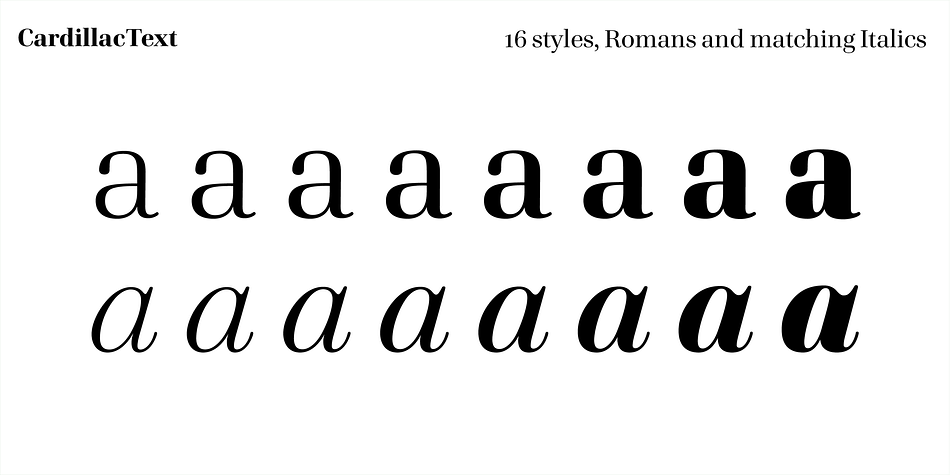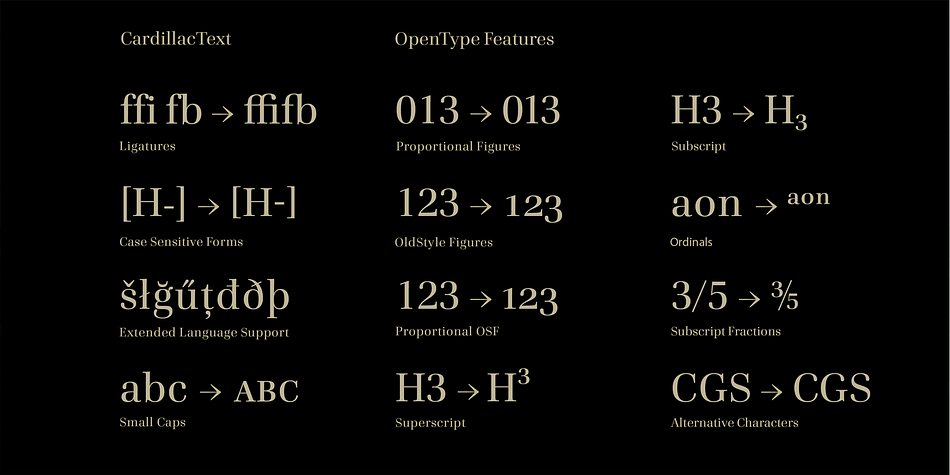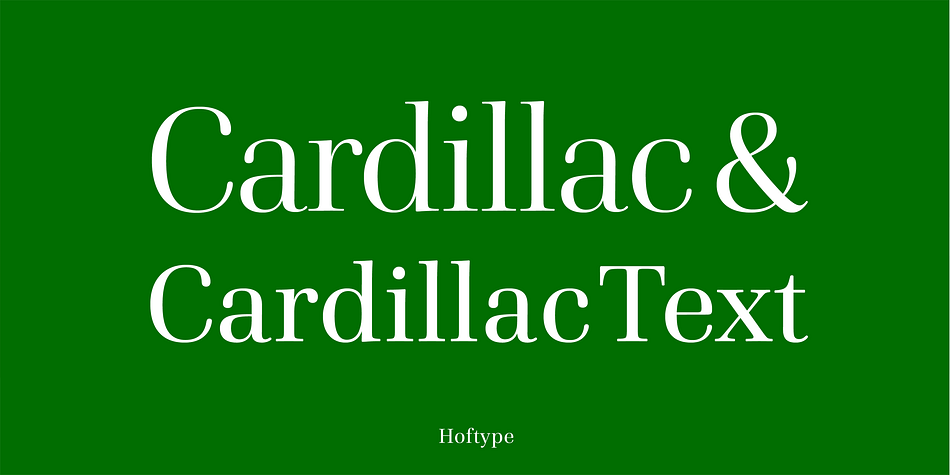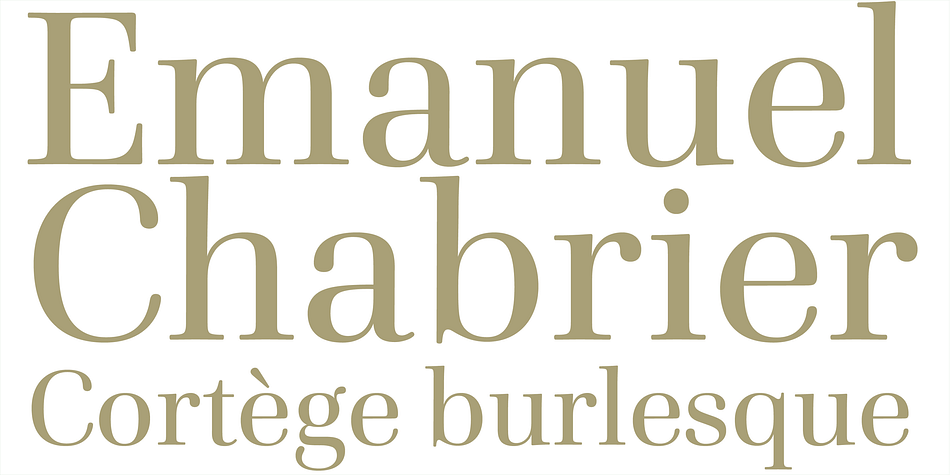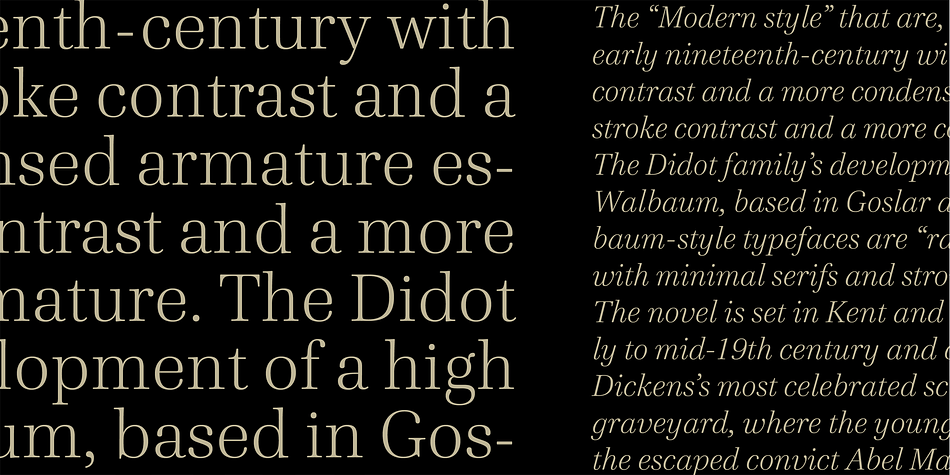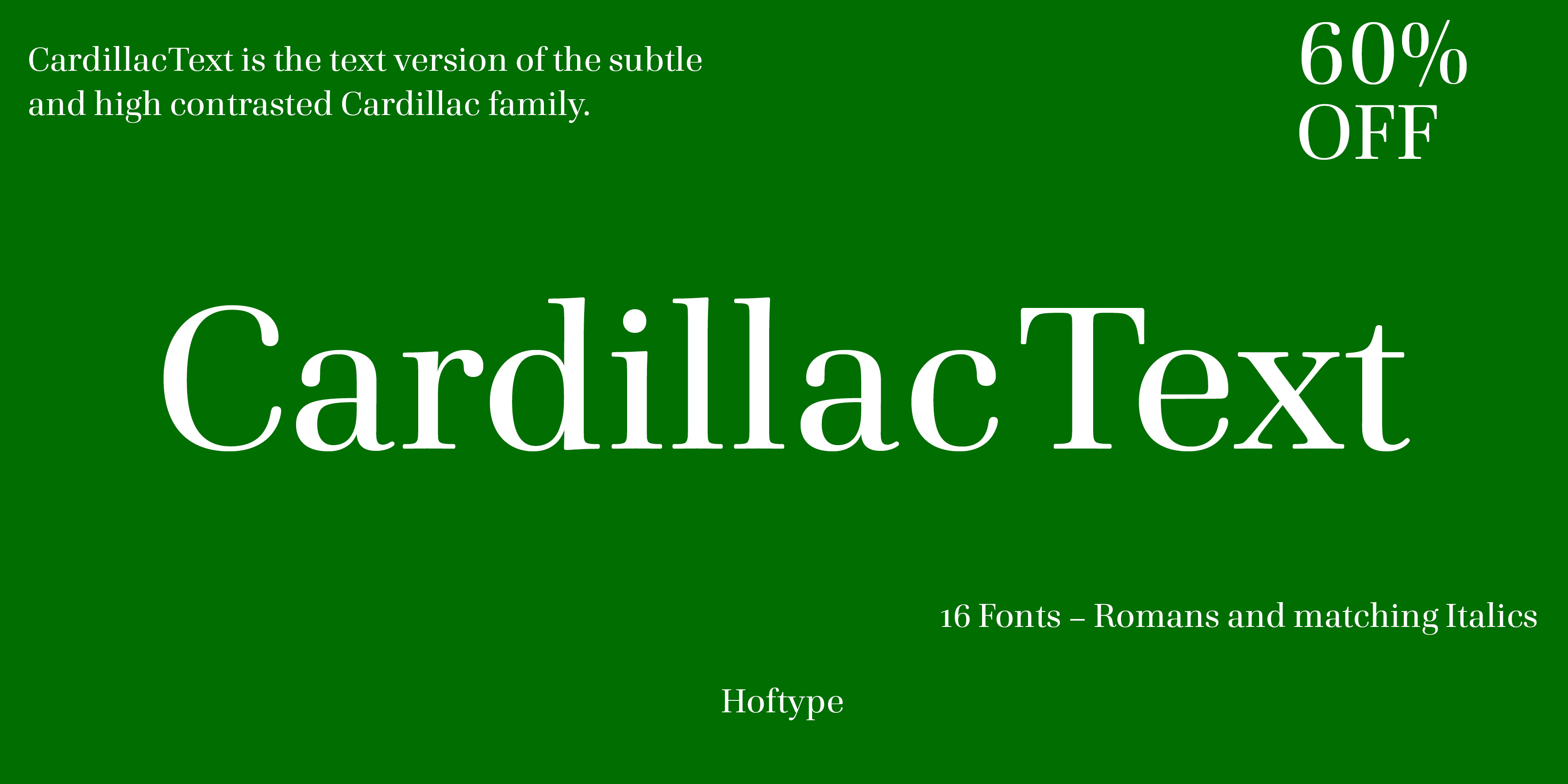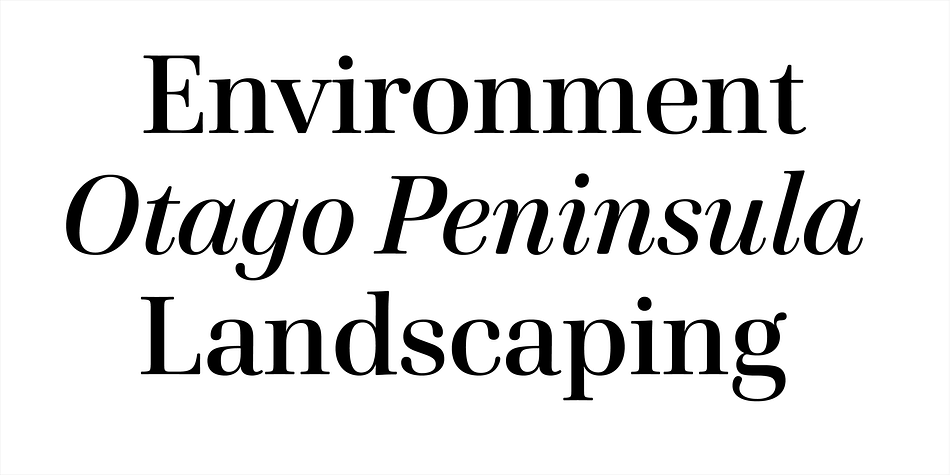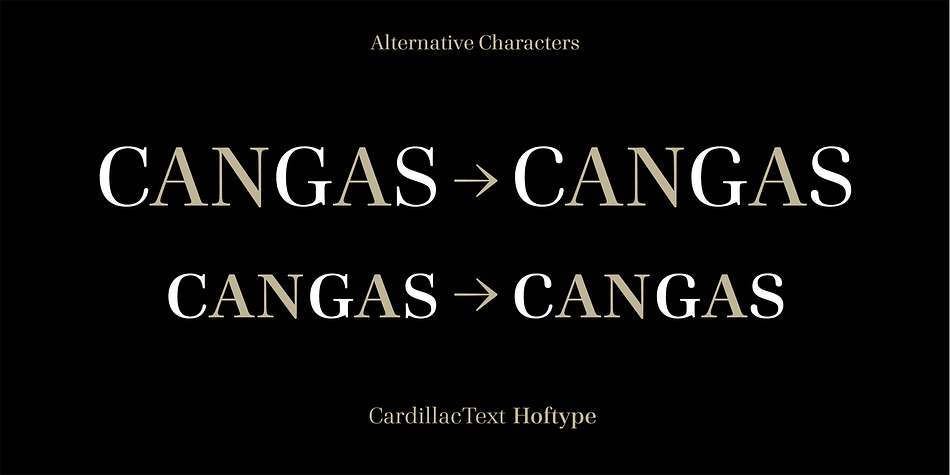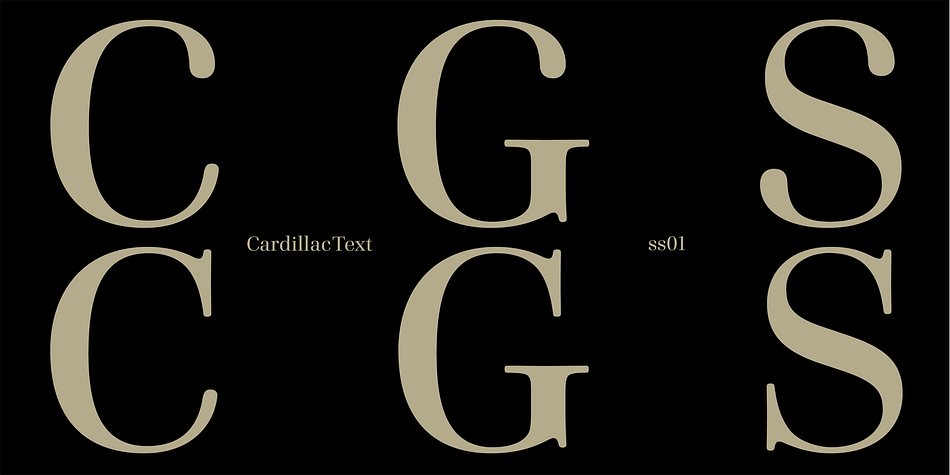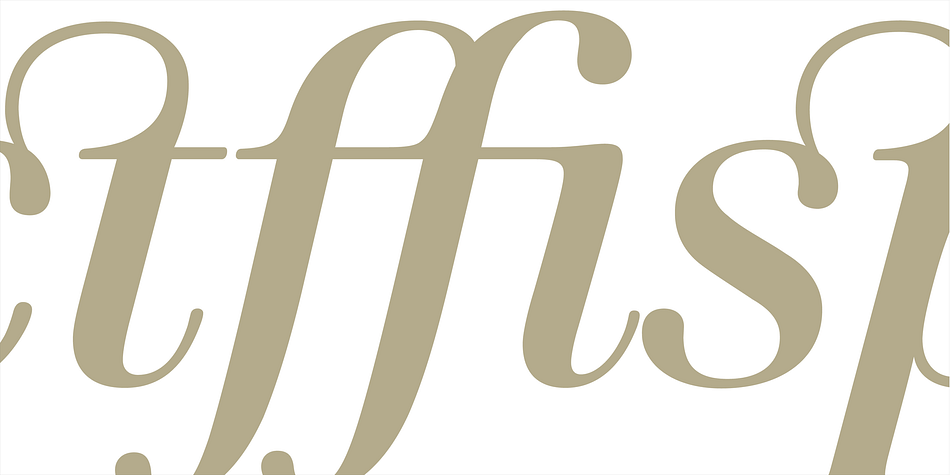
Cardillac Text
Designed by Dieter Hofrichter, Cardillac Text is a serif font family. This typeface has sixteen styles and was published by Hoftype.
CardillacText is the down to earth version of the subtle and high contrasted Cardillac family. More suitable for longer text and for strong headline applications.
The CardillacText Family consists of 16 styles, provides many features which allow its application for ambitious typography. It comes in OpenType format with extended language support. All weights contain small caps, ligatures, superior characters, proportional lining figures, tabular lining figures, proportional old style figures, lining old style figures, matching currency symbols, fraction- and scientific numerals, matching arrows and alternate characters.